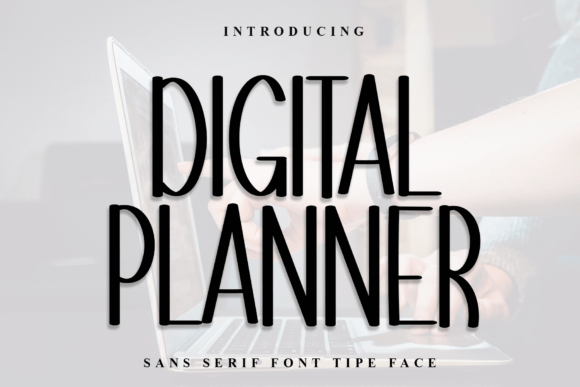
The Perfect Match for Your Creative Projects
Have you ever stared at a blank page, waiting for inspiration to strike? That’s exactly what happened to me last week. I was brainstorming ideas for a friend’s birthday party, and I knew I needed a font that would capture the celebratory spirit. That’s when I discovered the Digital Planner Font – a charming, hand-drawn font that exudes warmth and friendliness.
This font is a game-changer for designers like me who want to add a personal touch to their projects. With its round, playful strokes and relaxed feel, the Digital Planner Font is perfect for personal projects, invitations, and social media graphics. Its unique aesthetic will set your designs apart and leave a lasting impression on your audience.
Digital Planner Font Key Features
- Unique Characteristics: The font features a modern and clean design, with a focus on simplicity and readability, making it perfect for digital planners, journals, and other organizational tools.
Digital Planner Font Review
Overall, I’m impressed with the Digital Planner Font. It’s a solid choice for anyone looking to create a functional and aesthetically pleasing digital planner. ✨ Here are some of its strengths:
- Clear and easy-to-read design
- Wide range of font sizes and styles to customize
- Good for printing or digital use
- Not ideal for very long or complex text documents
- Some users may find the font too minimalist or plain
Overall, I’d say the Digital Planner Font is a great choice for those who need a clean and simple digital planner. While it may not be perfect for every use case, it’s a solid option for most users. With a little creativity and customization, you can create a planner that suits your needs and style.
Practical Application Guide for Digital Planner Font
Tips for Getting the Most Out of the Digital Planner Font
Use the font in combination with high-quality graphics and images to create a visually appealing design.
Experiment with different font sizes, colors, and styles to create a unique and engaging look.
Use the font in conjunction with other design elements, such as borders and backgrounds, to create a cohesive and professional design.
The Digital Planner Font is ideal for use in digital planners, journals, and other planning and organization tools.
The font is also suitable for use in creative projects, such as scrapbooking and card making.
The font can be used in a variety of industries, including education, healthcare, and finance, to create professional and engaging documents and presentations.